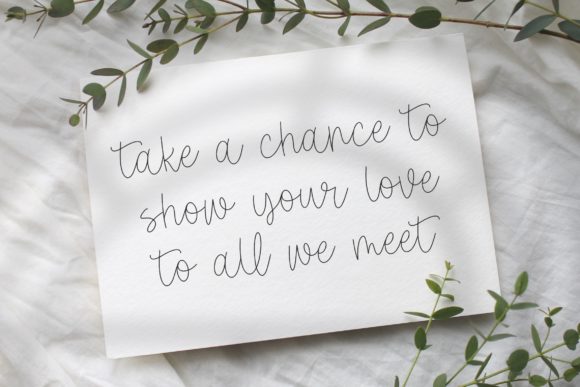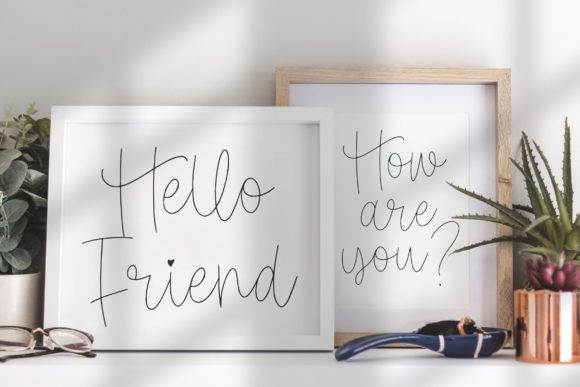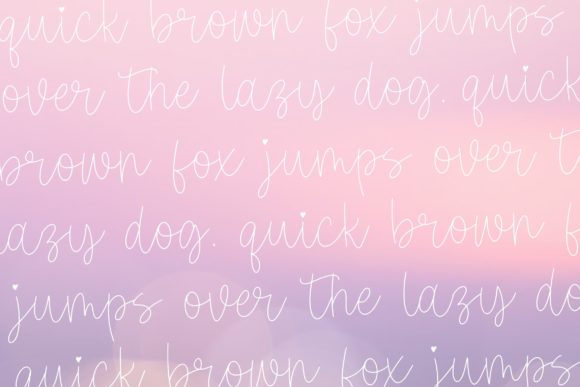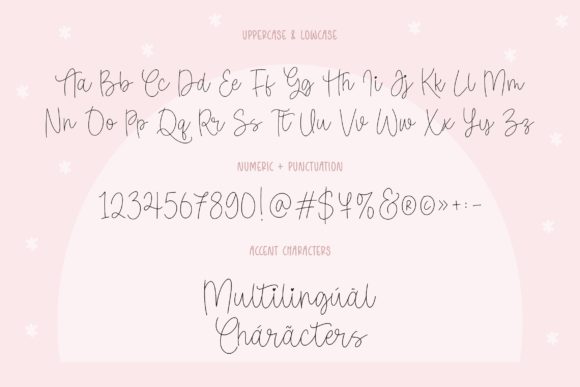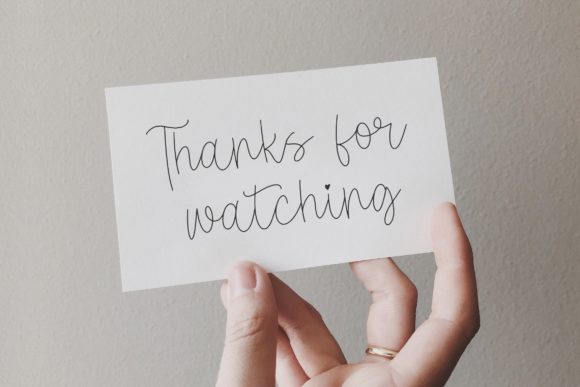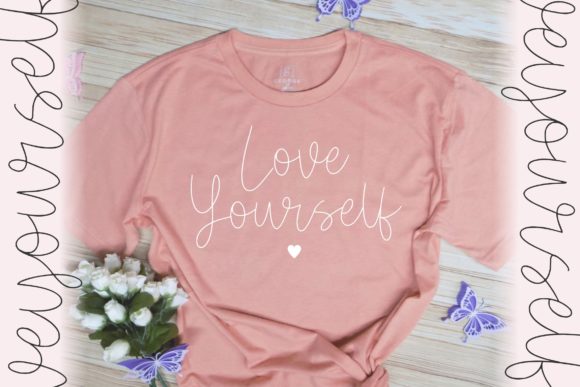
About Glamoria Script Font
Proudly Present, Glamoria Font.
Glamoria is a Modern Monoline Script Font.
Glamoria Script is an enchanting handwritten font. This versatile script font has a wide spectrum of applications, ranging from greeting cards to headlines, and is guaranteed to add a romantic feel to your next project.